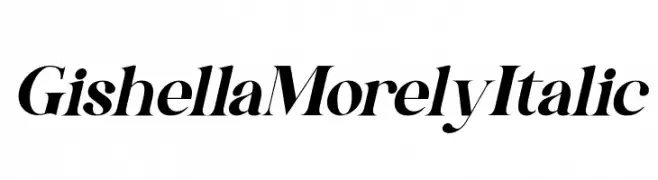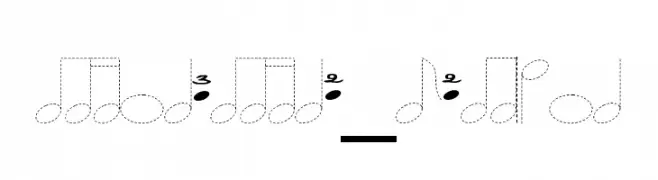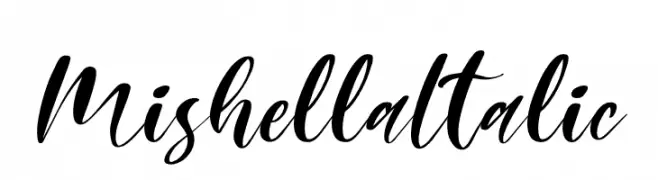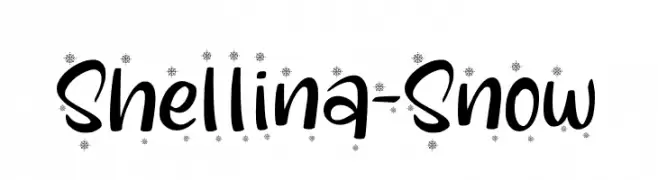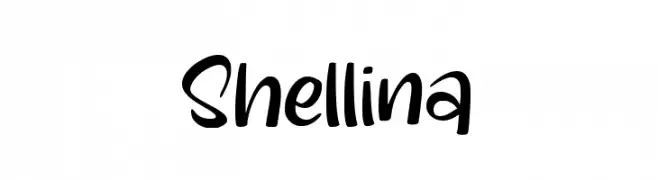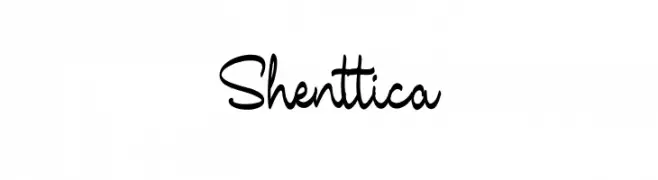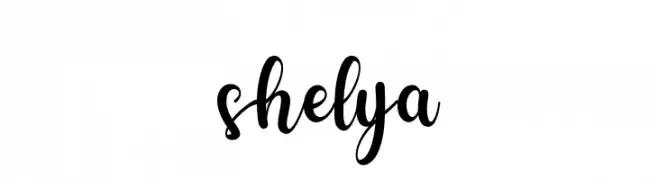
A playful, handwritten font with bold, rounded characters.
A playful handwritten font with snowflake accents, perfect for festive designs.
Decorative font with musical symbols and tracing outlines.
A playful, handwritten font with fluid strokes and a casual vibe.
An elegant italic font with medium contrast and a modern twist.
A classic serif font with high contrast and elegant strokes.
A flowing, cursive font with elegant, interconnected strokes.
An elegant, flowing script font with smooth, cursive strokes.
A bold, playful script font with a handwritten, decorative style.
A flowing, cursive font with elegant, sweeping lines and interconnected characters.